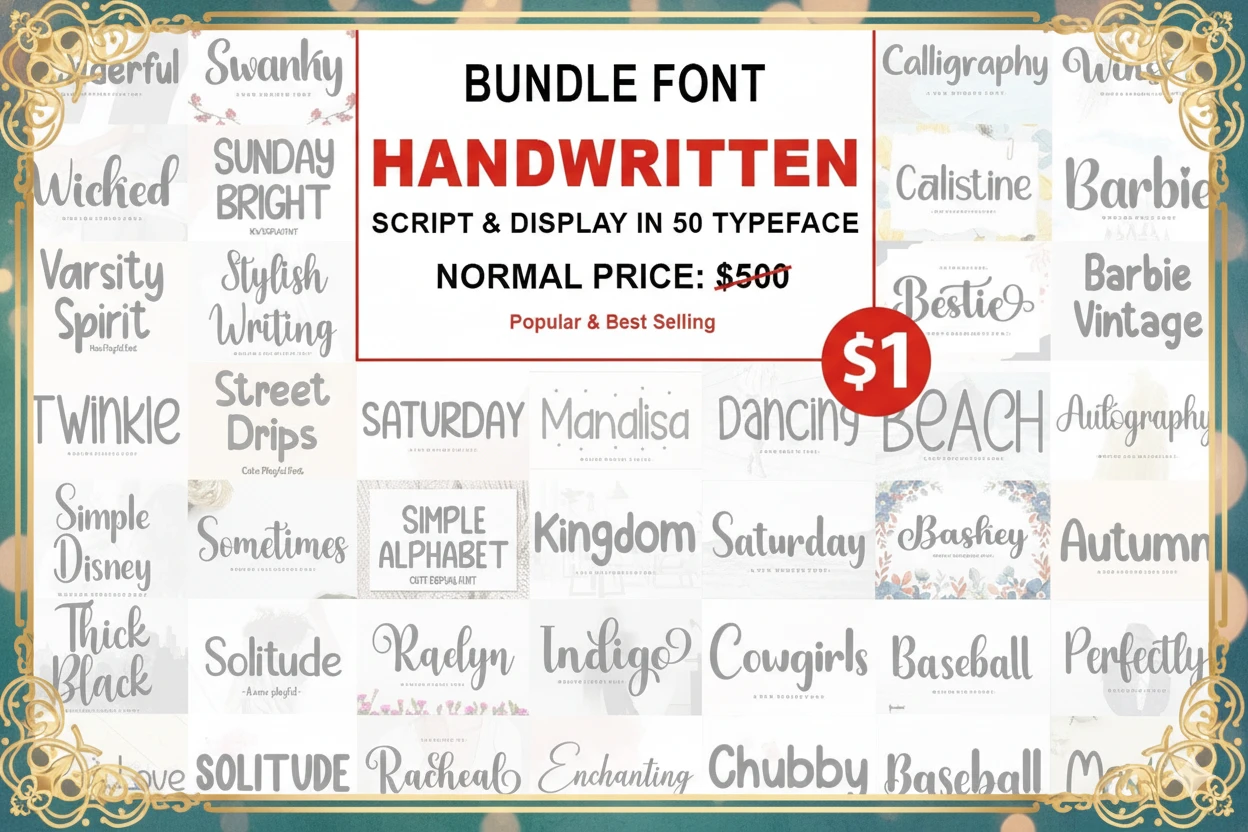
Handwritten Font Bundle – 50 Modern Script & Display Fonts
If you work on branding, invitations, Pinterest graphics, or even simple social posts, handwritten fonts can completely change the mood of a design. Some feel polished and elegant, others look casual and slightly imperfect in the best way possible. This bundle leans into that balance really well.
The Handwritten Font Bundle includes 50 modern fonts covering script, display, serif, sans serif, signature, and calligraphy styles.
What stood out to me while looking through this collection is that the fonts don’t all follow the same trendy “Instagram script” look. A few have a softer brush texture, some feel cleaner and more editorial, and others work surprisingly well for packaging mockups and logo concepts. That mix makes the bundle a lot more usable long term instead of feeling repetitive after a few projects.
A couple of the signature-style fonts especially work nicely for beauty brands and handmade product labels. The slightly uneven strokes make them feel less digital, which honestly matters more than people think when you’re trying to avoid that “template-made” look.